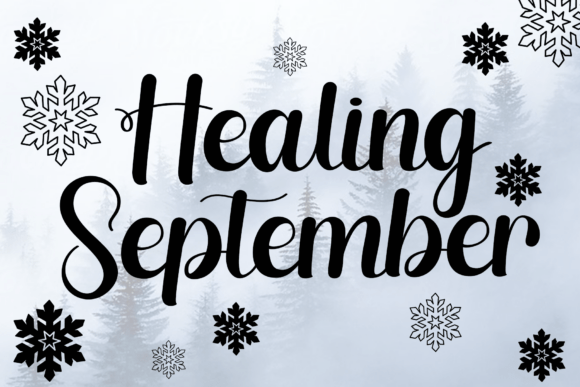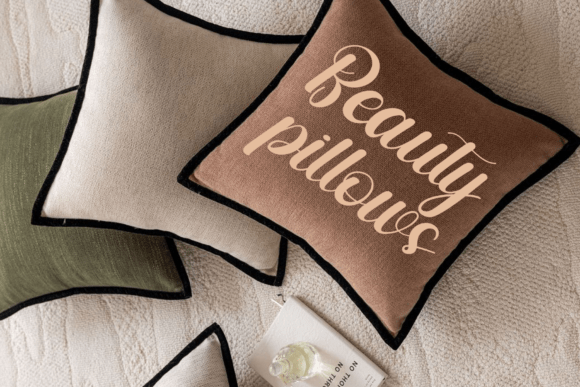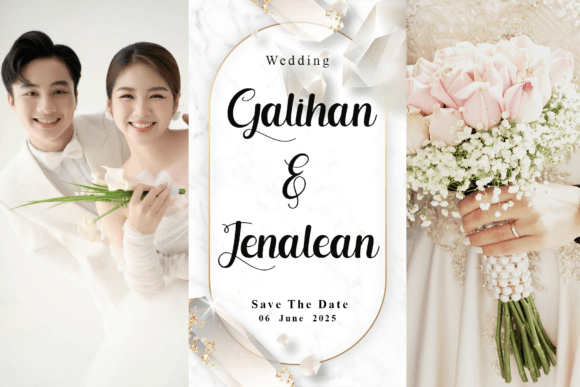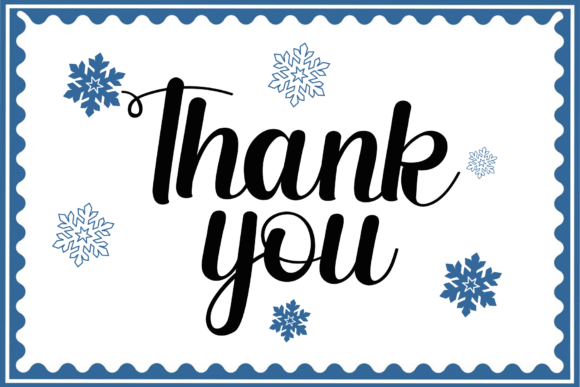
Embracing the Magic of Winter with the Perfect Font
As the snowflakes start to fall and the fireplace crackles to life, there’s something undeniably magical about the winter season. For many creatives, this time of year is a chance to cozy up with a warm cup of coffee, and let their imagination run wild. And what better way to capture the essence of this enchanting season than with the perfect font?
Enter the Hello Winter Font, a stunning handwritten font that embodies the very essence of winter’s charm. Designed to evoke the timeless beauty of classic calligraphy, this font is a masterclass in balance and variation, ensuring that your projects are elevated to new heights. Whether you’re designing festive holiday cards, or creating a winter wonderland-inspired blog post, the Hello Winter Font is the perfect companion for your creative endeavors.
Hello Winter Font Key Features
- Font Family: A beautiful, modern script font designed specifically for the winter season.
- Unique Characteristics: Features elegant, flowing lines, and subtle flourishes, perfect for creating a warm and inviting atmosphere.
Hello Winter Font Review
Overall, I think the Hello Winter Font is a lovely, seasonal choice for winter-themed projects. ✨ The font’s playful, handwritten feel evokes a sense of whimsy and nostalgia, making it perfect for holiday cards, gift tags, or social media graphics.
- One of the strengths of the Hello Winter Font is its versatility. ✨ It works well in a variety of contexts, from formal to casual, and can be easily paired with other fonts to create a unique visual style.
- Another plus is the font’s high-quality, crisp lines and smooth curves, which make it a pleasure to read and work with.
- The font also includes a range of characters, including punctuation, numbers, and special symbols, which makes it easy to use in a variety of applications.
However, there are a few limitations to consider: ⚠️ The font may be too cursive for some users, particularly those with vision impairments or who prefer a more straightforward, sans-serif font.
Overall, I think the Hello Winter Font is a great choice for anyone looking for a seasonal, handwritten font. While it may not be perfect for every project, it’s a great option for those who want to add a touch of whimsy and personality to their designs.
The Hello Winter font is ideal for:
- Winter-themed designs and graphics
- Festive invitations and party decorations
- Winter sports and outdoor activities
- Cozy and warm branding and packaging